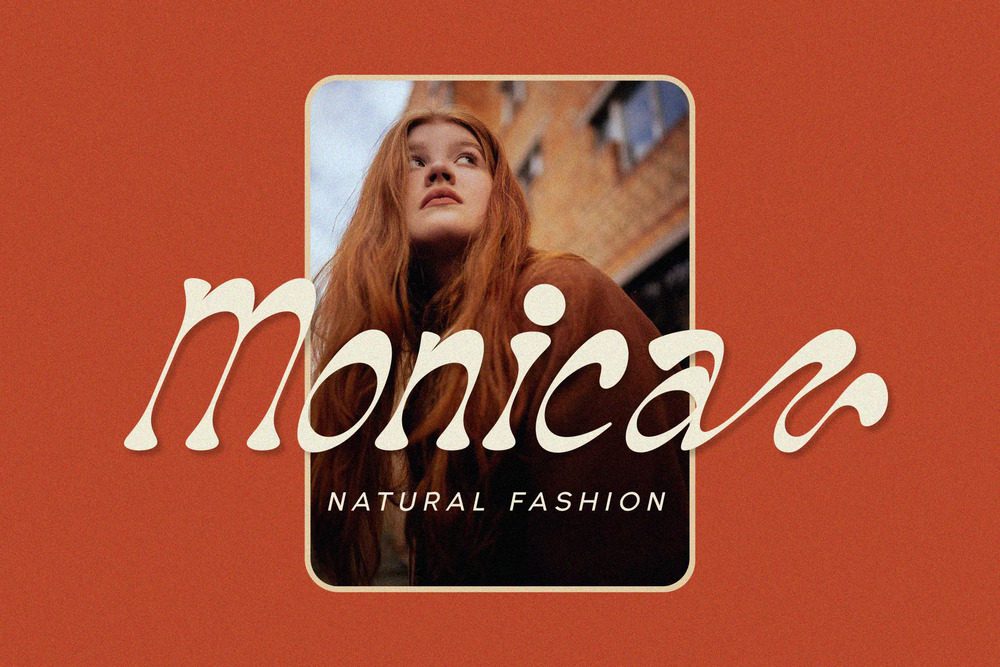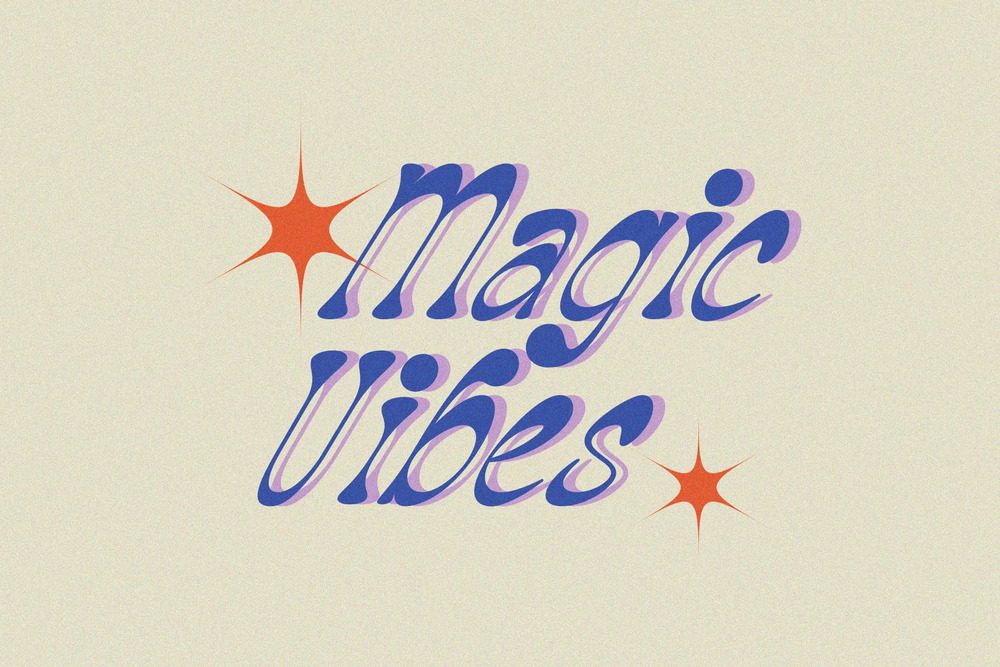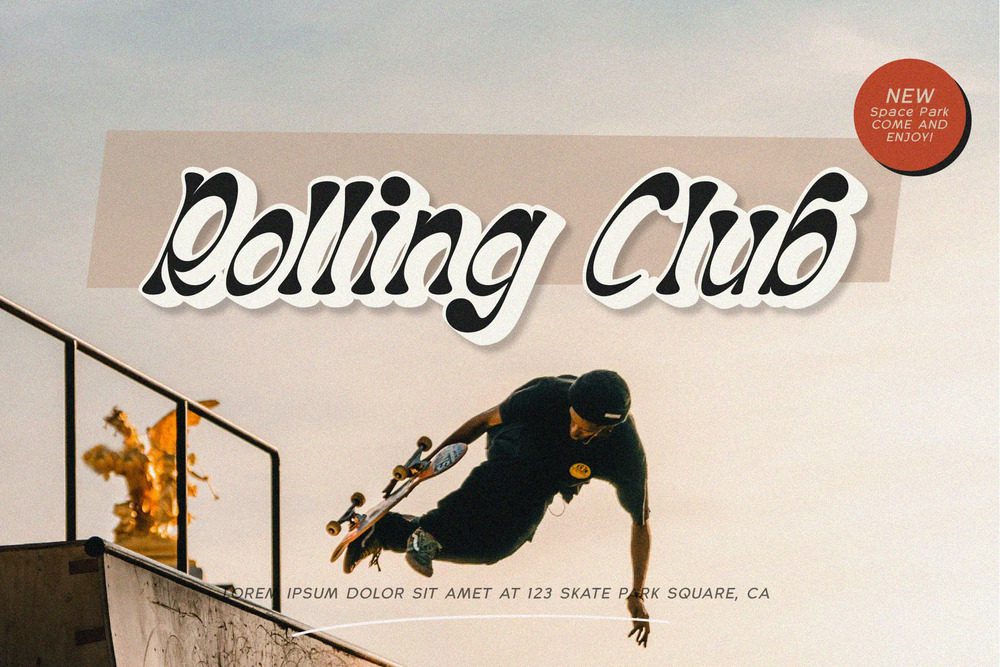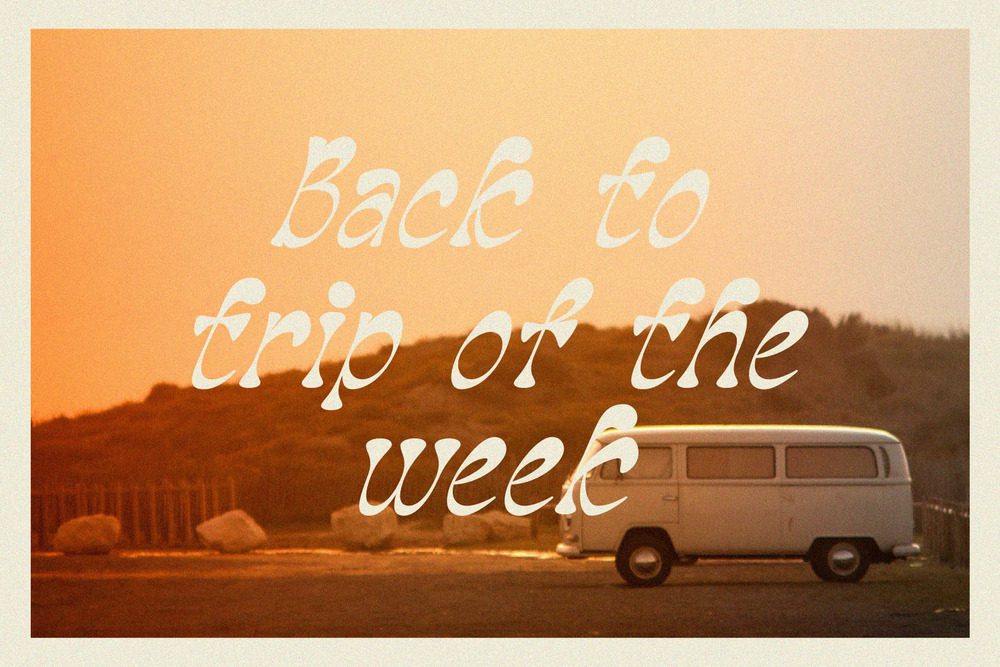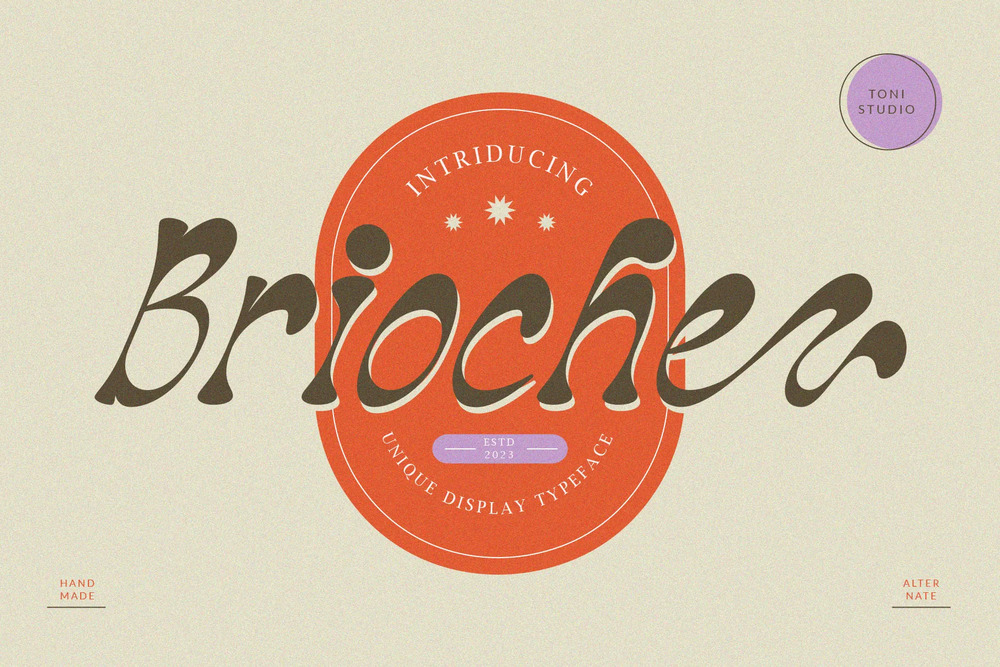
Brioche Font
Brioche is a unique serif display typeface with thick, bubbly strokes on top and light in the center, ideal for giving a retro touch to light-toned compositions. Inspired by one of the most iconic typefaces of the last century, this display font comes in a regular version. It can be used to create title artwork, album covers, posters and flyers giving it a perfectly vintage feel. Plus, it’s ideal for creating a nostalgic standout piece for your social media feeds.